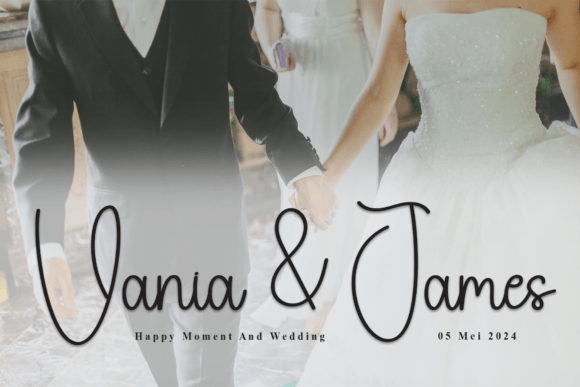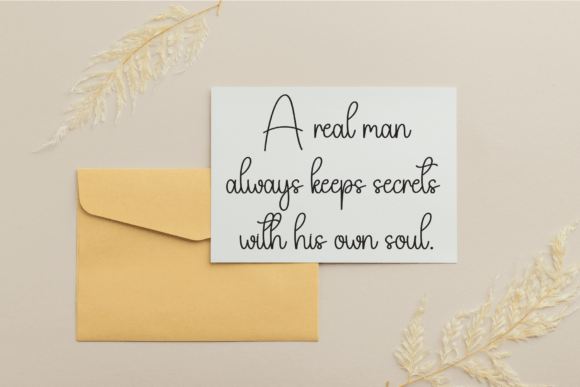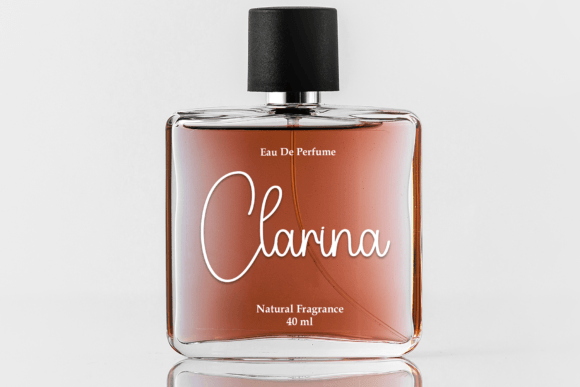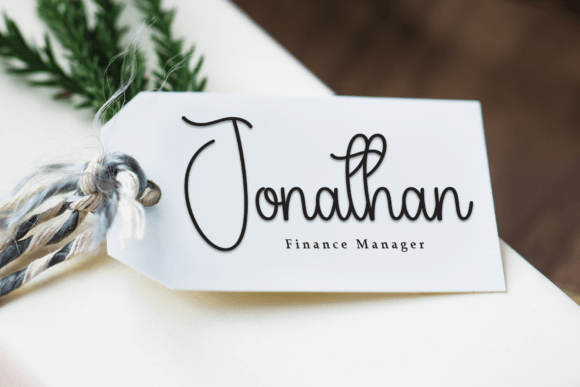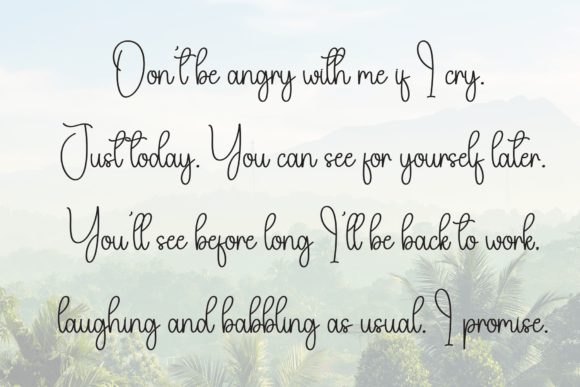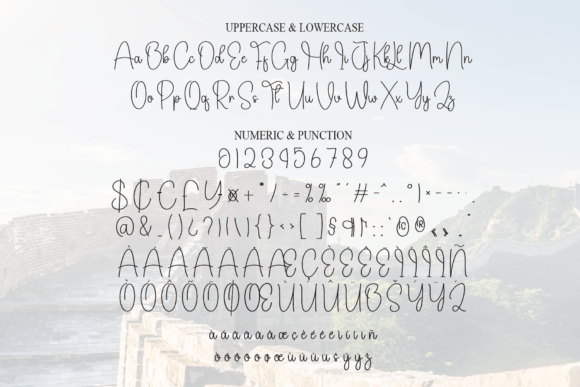
Introduction to Greathing Font
Greathing is a modern handwritten font that seamlessly combines elegance with a touch of whimsy.
Its fluid, organic strokes, and refined letterforms make it ideal for upscale packaging, branding, and editorial designs Bring a bespoke, artisanal feel to any project with the graceful allure of Greathing.